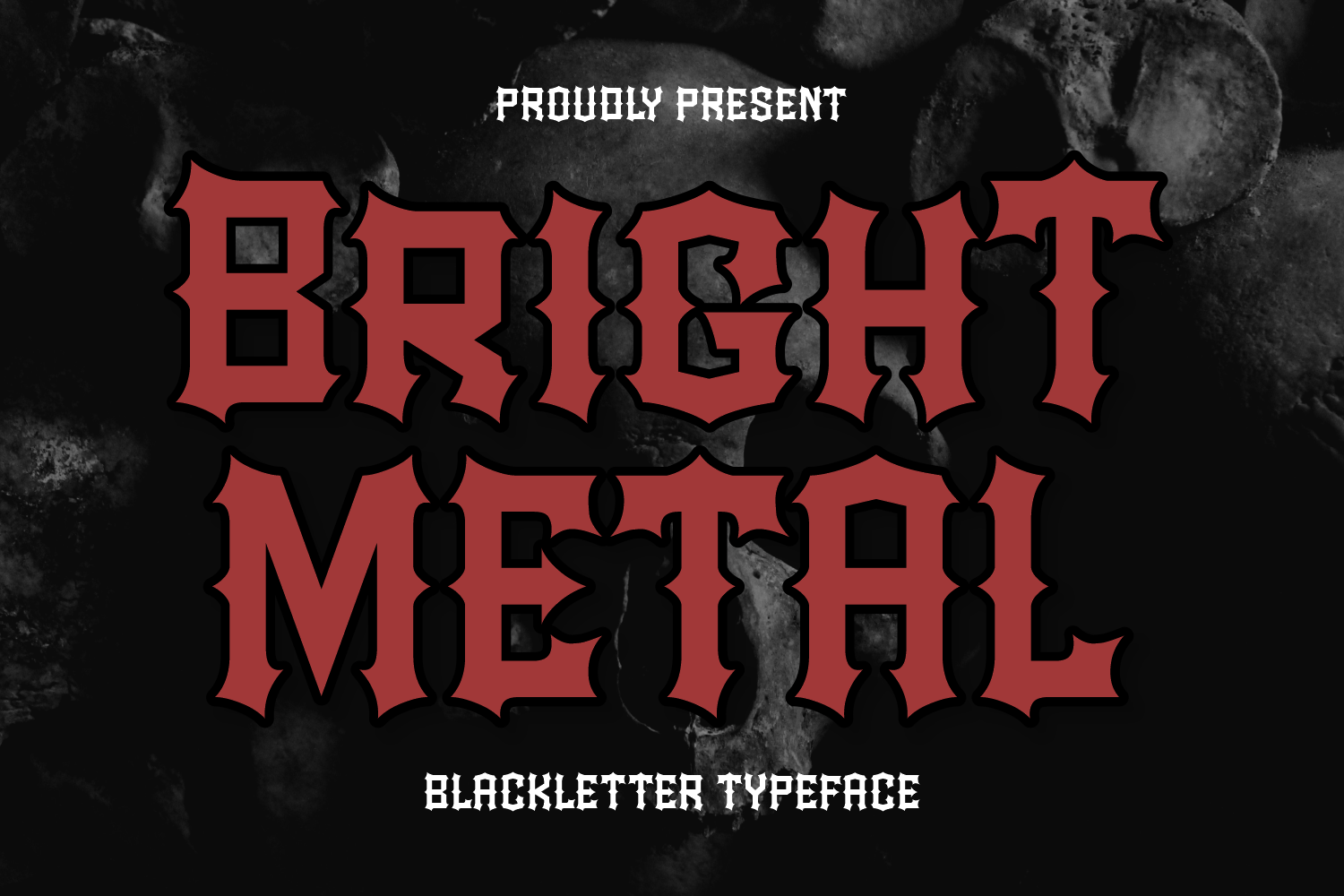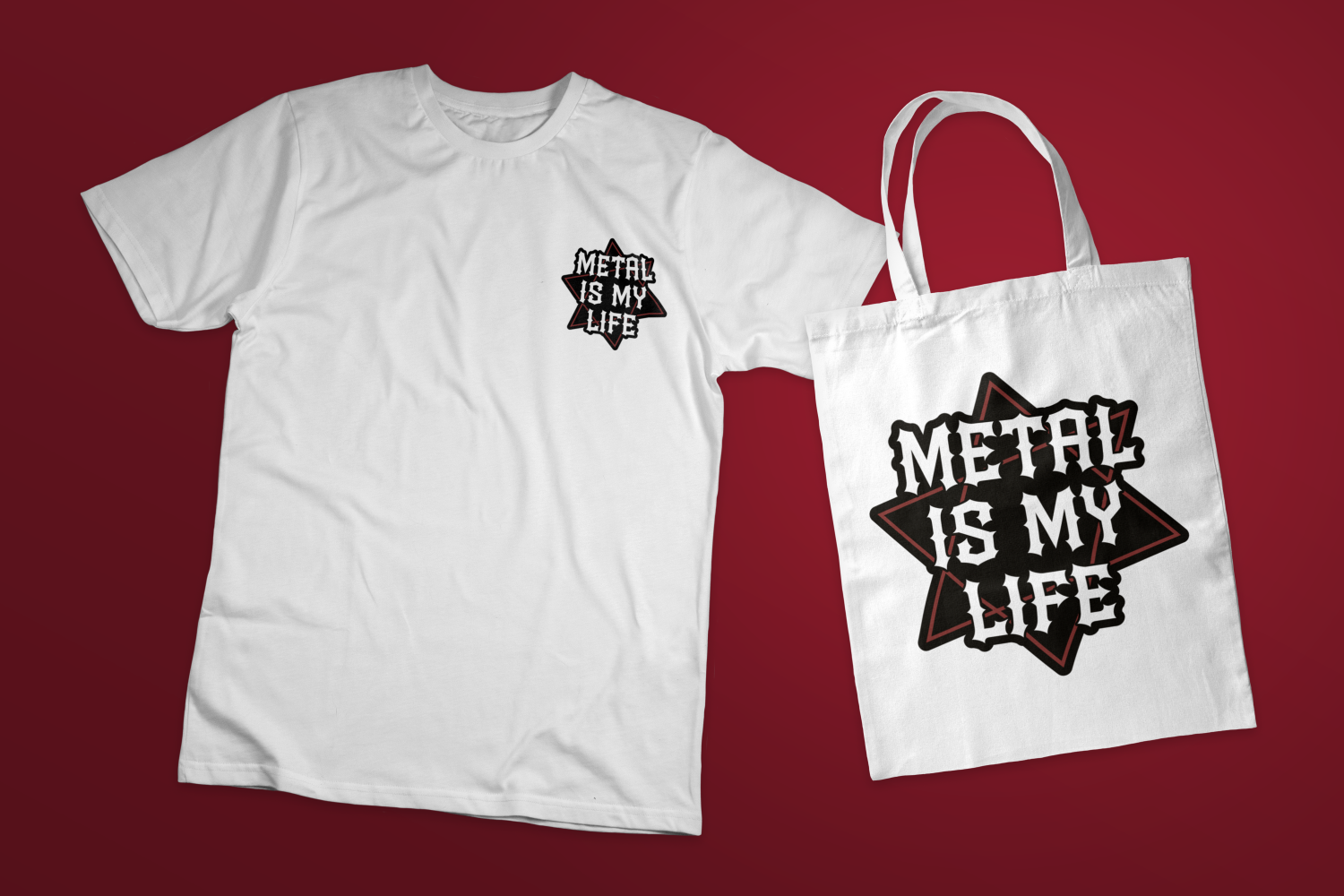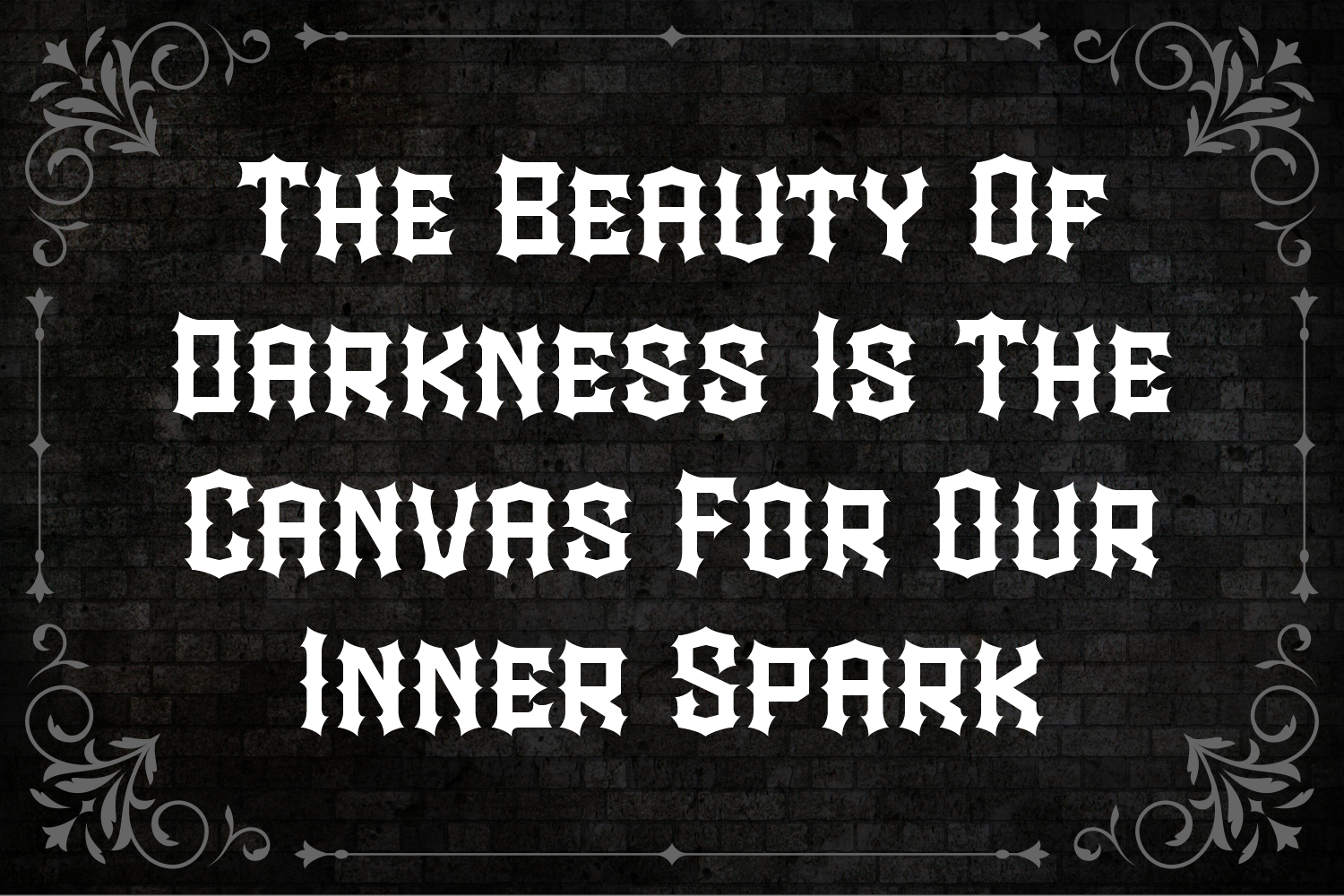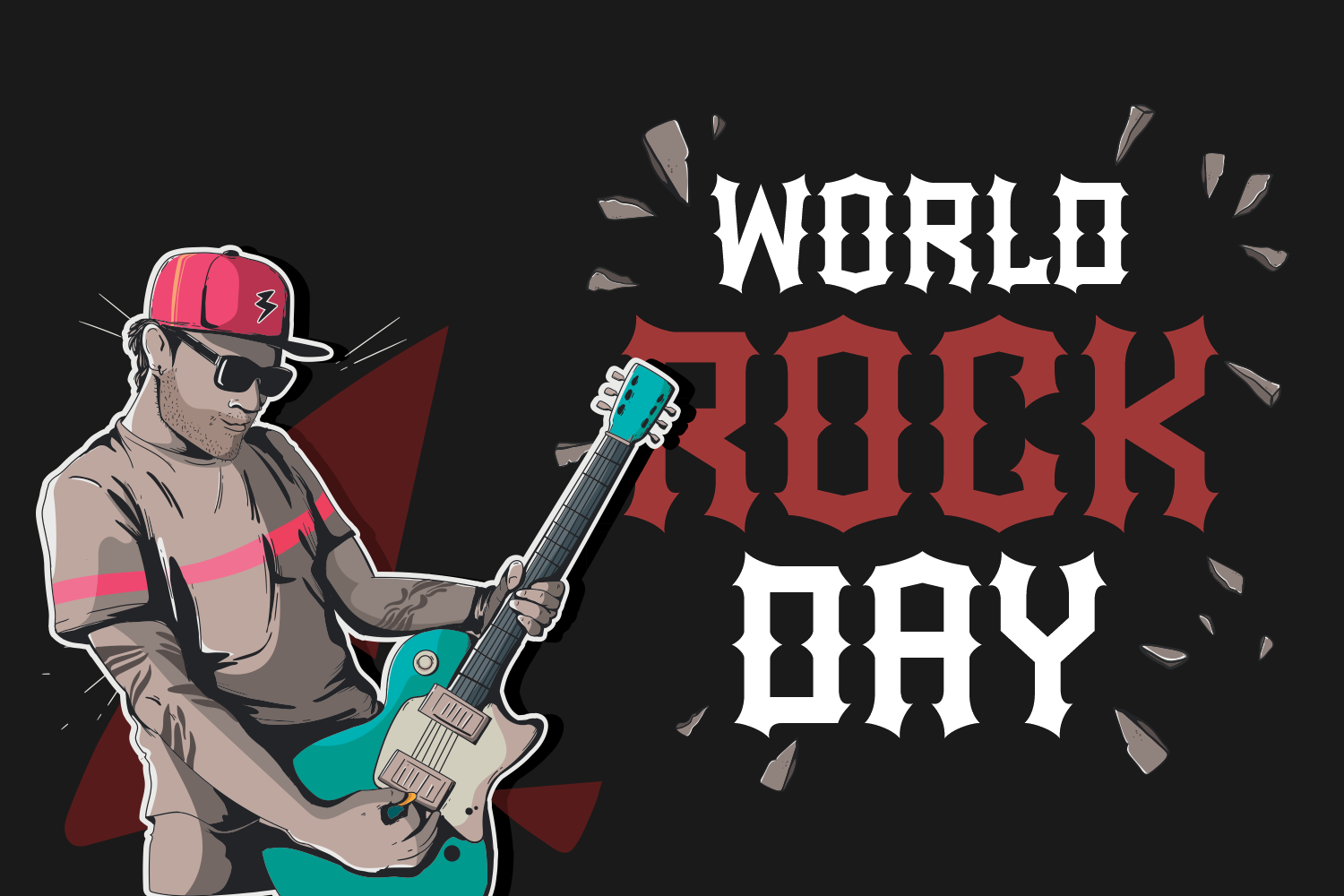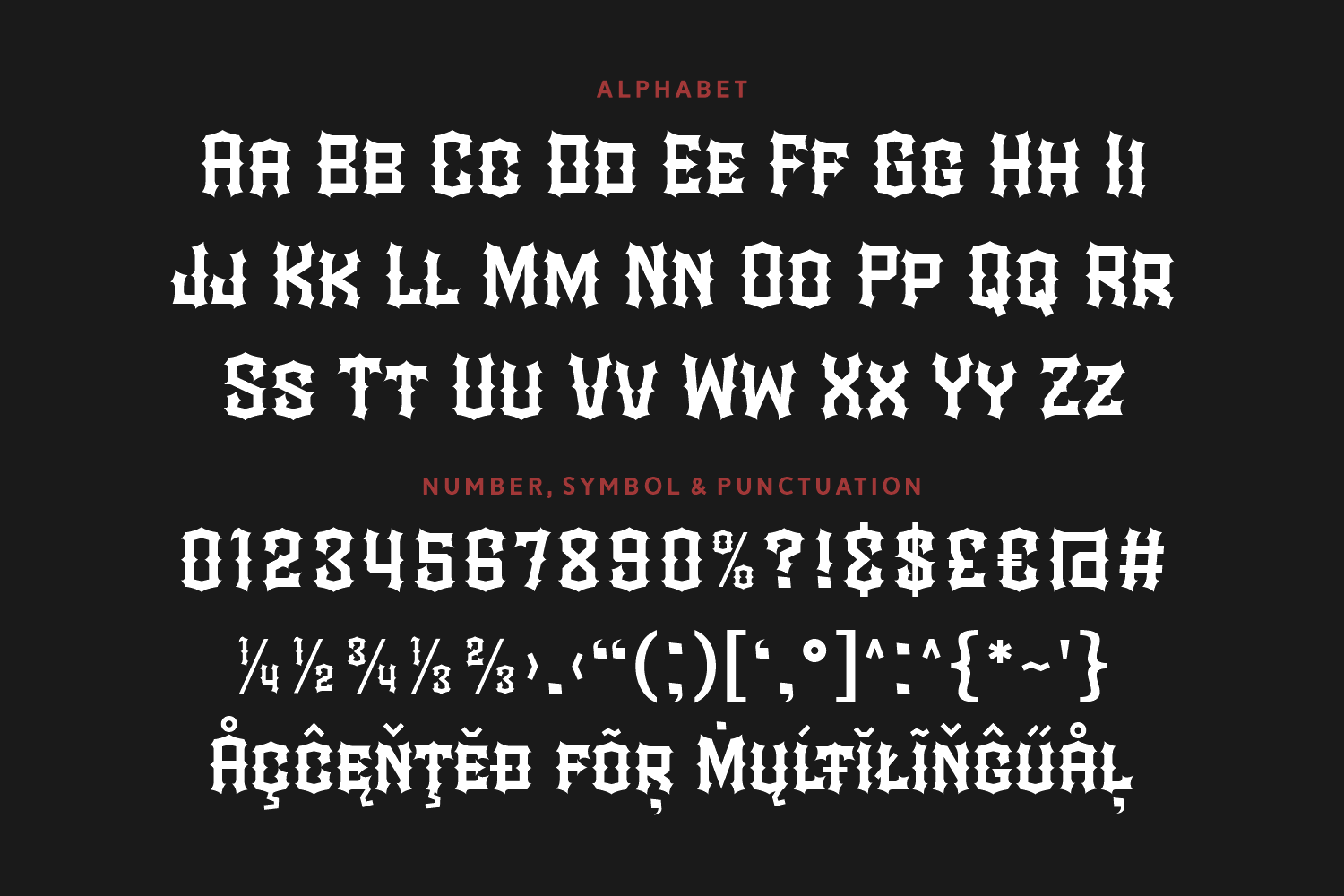
Bright Metal is a heavy, aggressive blackletter typeface built for power. With its blocky structure, sharp spikes, and bold outlines, it screams heavy metal energy—perfect for band logos, album art, posters, and anything that needs a hardcore, rebellious edge.